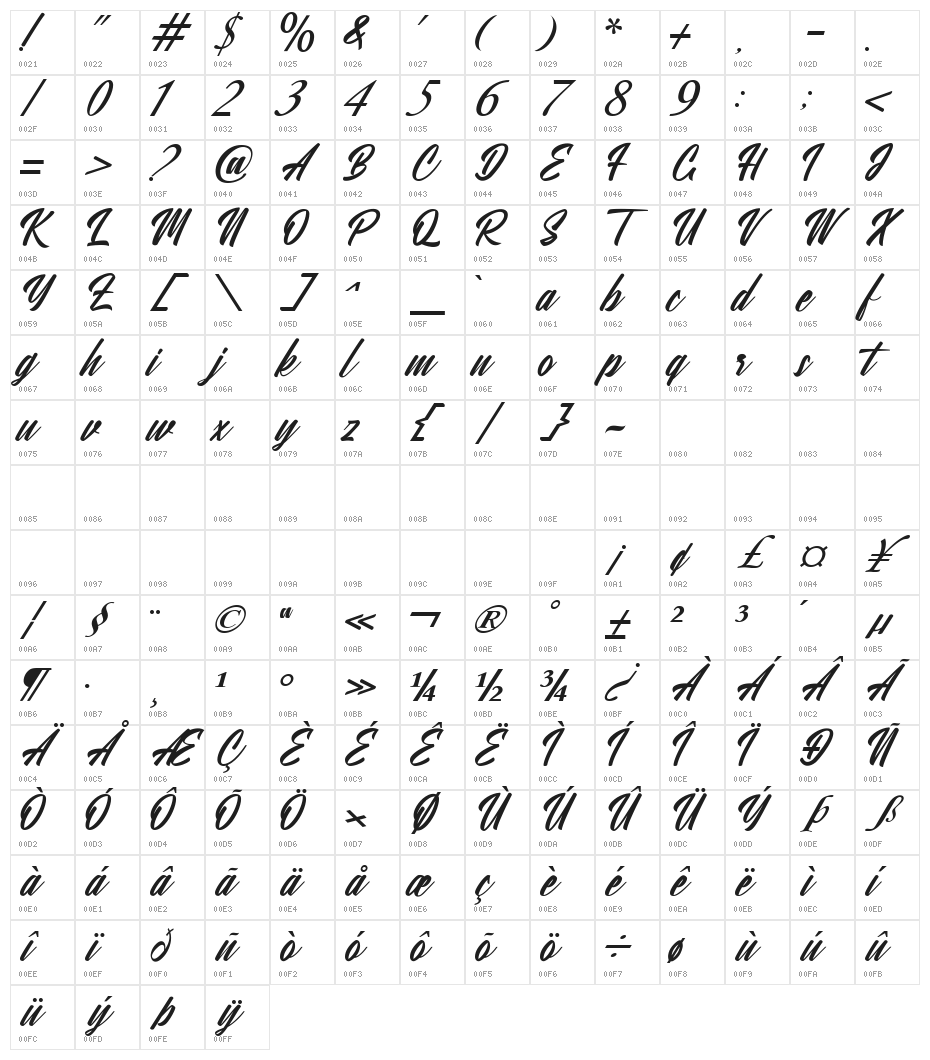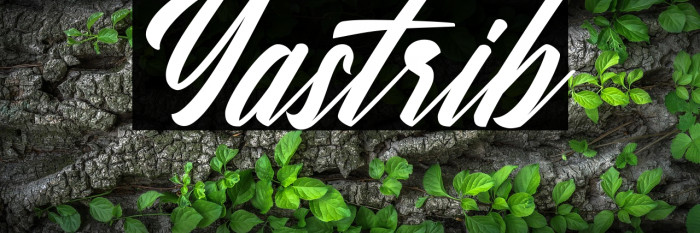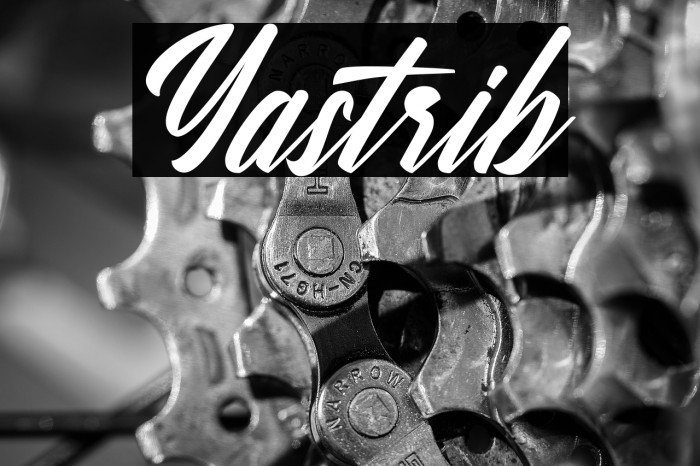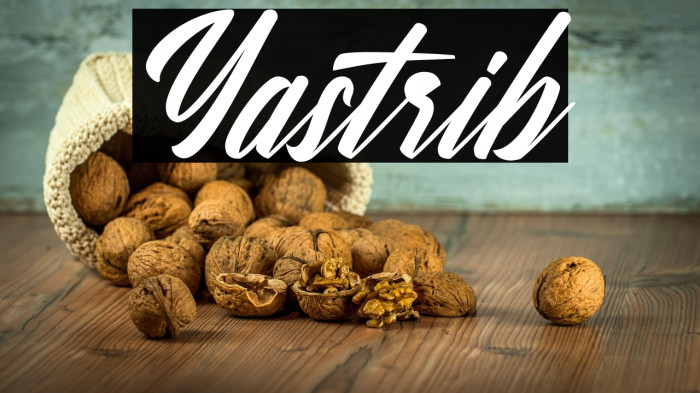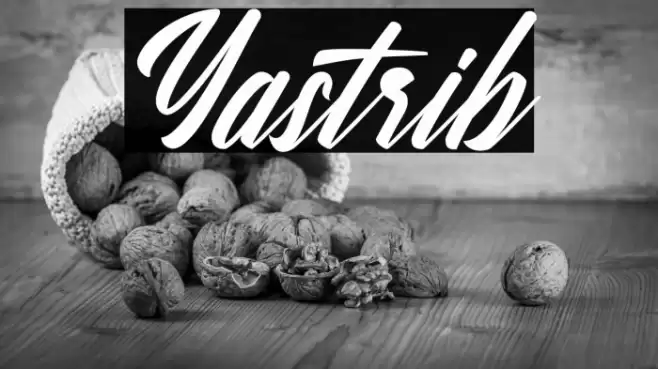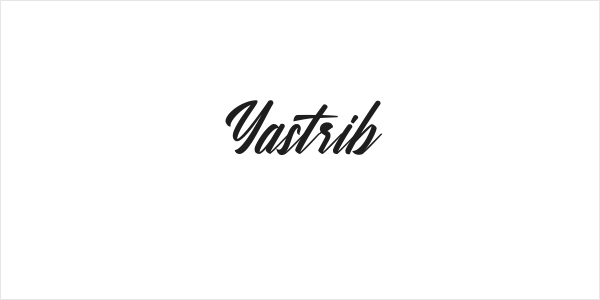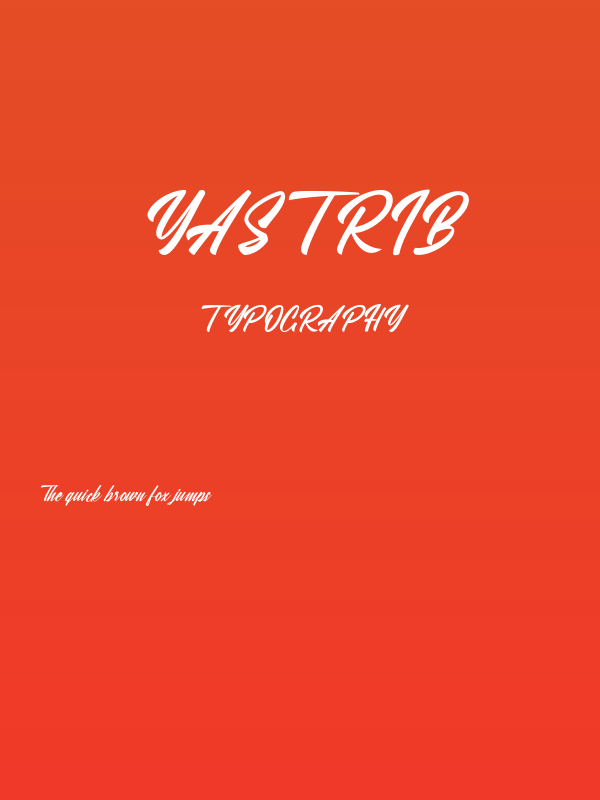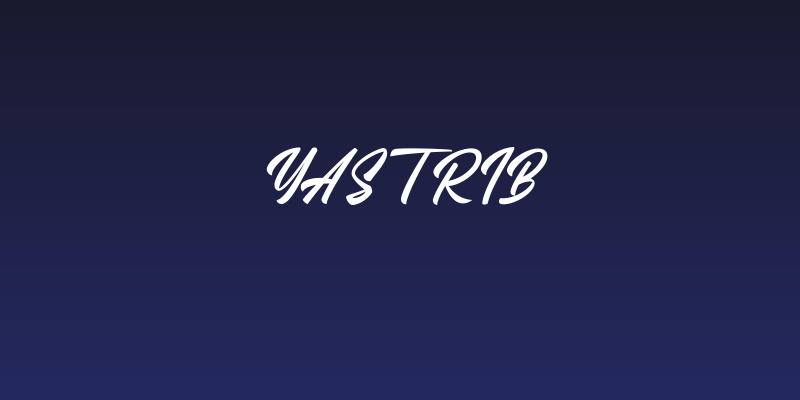
Yastrib Font
Yastrib Description
This font exudes a dynamic and elegant script style, characterized by its flowing, cursive letterforms. The uppercase letters are bold and sweeping, with a slight slant that adds a sense of motion and fluidity. The lowercase letters maintain a consistent style, with smooth connections and rounded forms that enhance readability. Numbers are designed with a similar flair, ensuring they complement the overall aesthetic. Special characters are crafted with the same attention to detail, making them seamlessly integrate with the rest of the font. The overall impression is one of sophistication and energy, suitable for a variety of creative applications.
| Overall Style | Elegant, Dynamic |
| Use Case | Logos, Invitations, Artistic Projects |
| Proposed Projects | Ideal for wedding invitations, elegant branding, greeting cards, and artistic posters. |